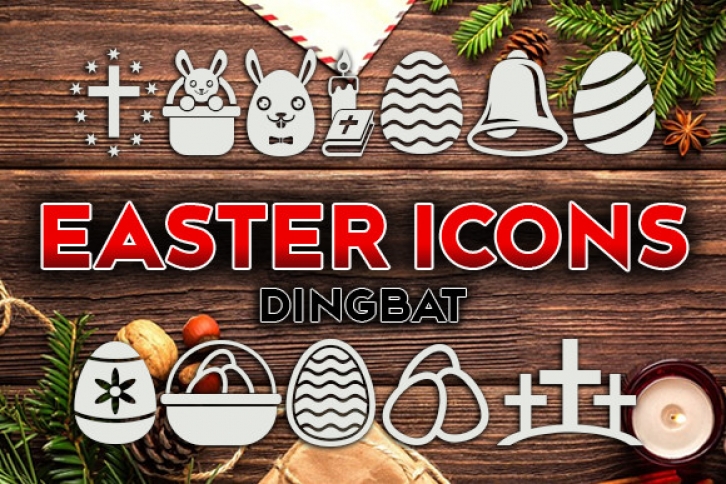
Easter Icons is an awesome dingbats font that will make your Easter designs look fantastic.
Use this adorable typeface on posters, flyers, and much more.